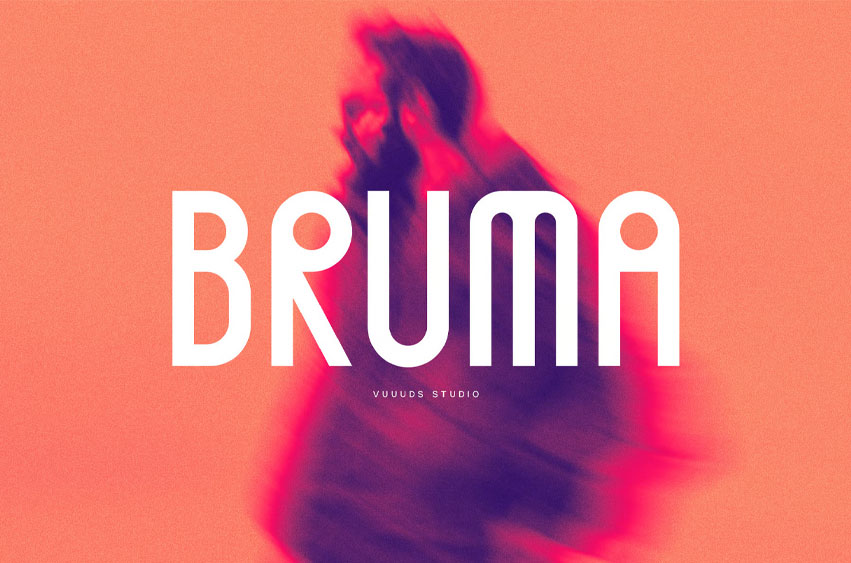
Bruma Font
Bruma Font is a modern condensed monoline font; every single letter has been uniquely crafted. This font includes beautiful alternate glyphs. You can access the alternate glyph via Font Book (Mac user) or Windows Character Map (Windows user).